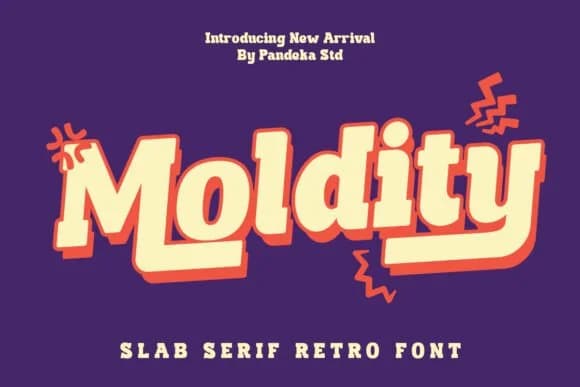
Moldity, designed by pandekastudio, is a slab serif built on thick, chunky serifs that anchor every letterform with substantial weight. This structural boldness gives the typeface genuine retro presence, the kind that feels rooted in mid-century design rather than a surface-level aesthetic reference. The letterforms are confidently drawn, with squared-off serifs and strong structural details that together communicate visual authority without requiring ornament.
Designers often reach for this font when building projects that need substantial presence paired with vintage character. Craft brewery labels, concert venue posters, vintage-inspired book covers, and diner signage are all natural homes for Moldity, where the typography becomes part of the brand story itself rather than an afterthought. The serifs are substantial without being delicate, so the font holds up beautifully in large display sizes but also remains readable in longer headline chains, giving you real flexibility across different formats and layouts.
This font works equally well in retro-reconstruction projects and modern brands that draw intentionally from that aesthetic vocabulary. Packaging designers, editorial teams, and small publishers building indie projects all turn to this style for its dependable, confident presence. Grab Moldity from Creative Fabrica and add this solid, authoritative slab serif design to your type collection.
- Sturdy, Confident, Retro
Moldity Font is a slab serif font that shines as a display or heading face. Pair it with a clean sans-serif or serif font for body text β the contrast creates a clear hierarchy while the two styles stay balanced and easy to read.